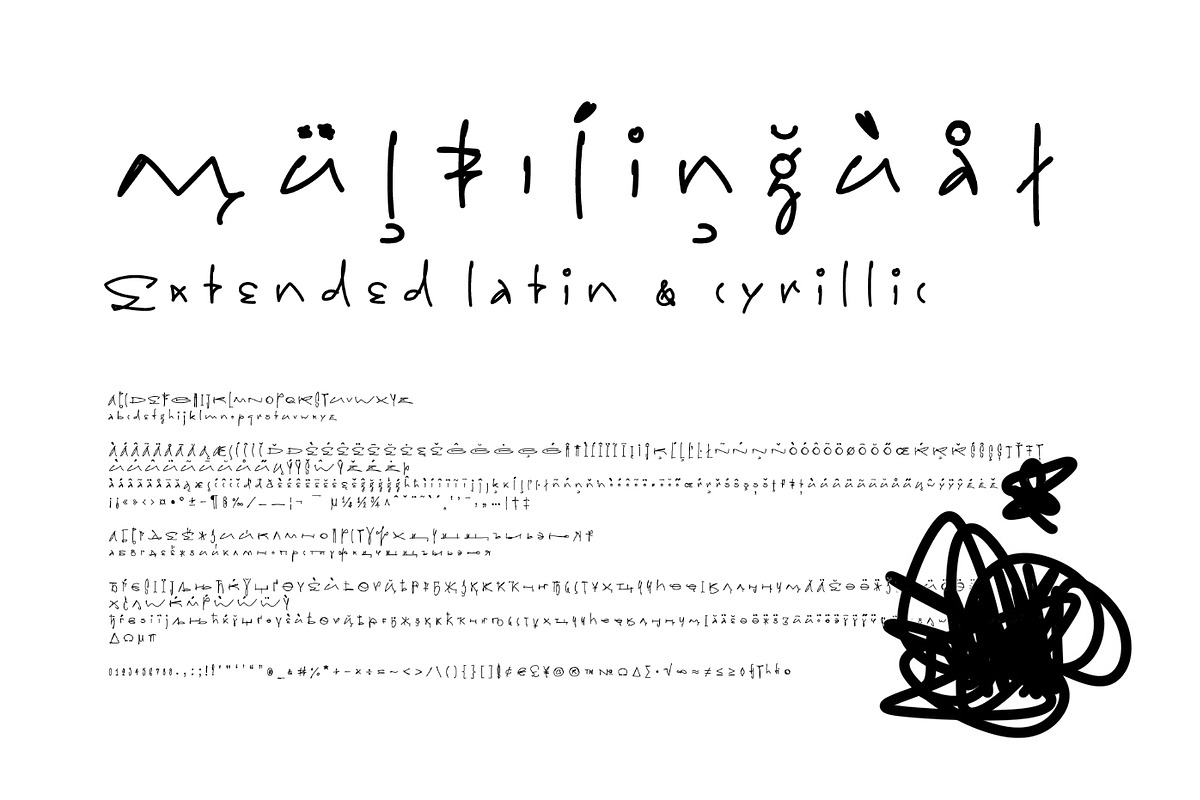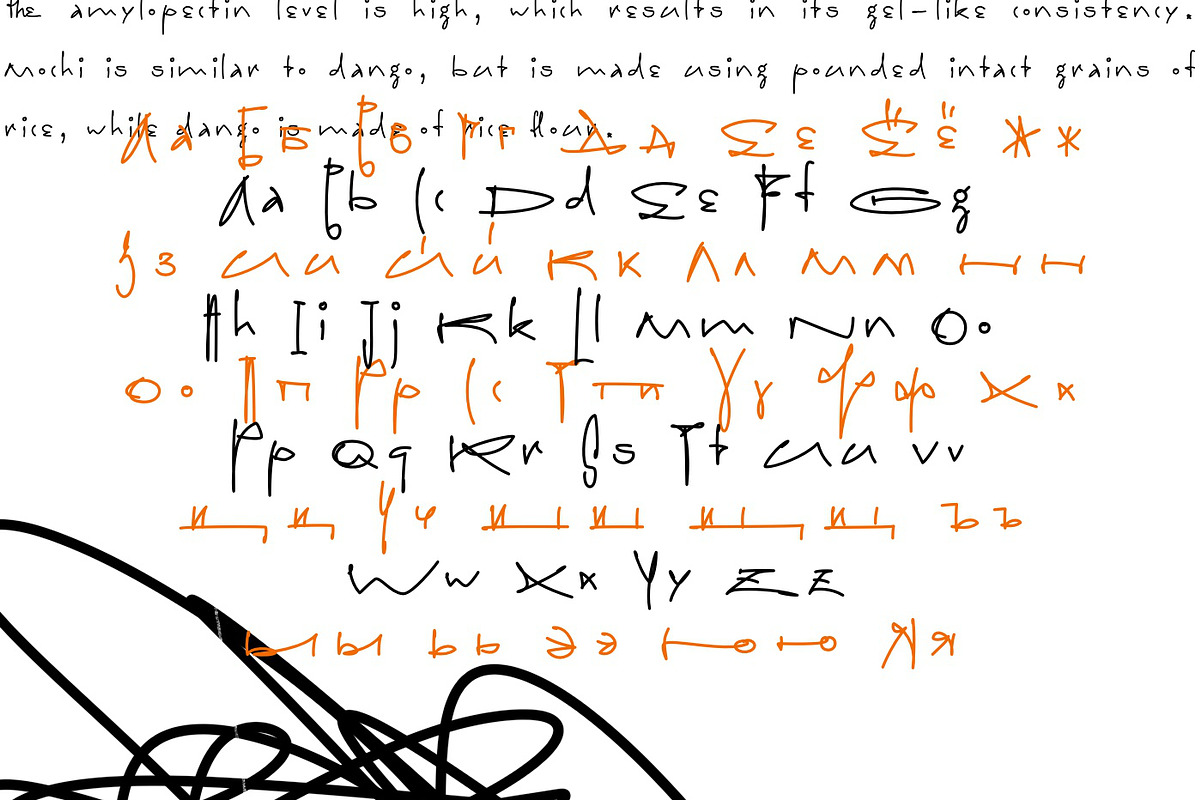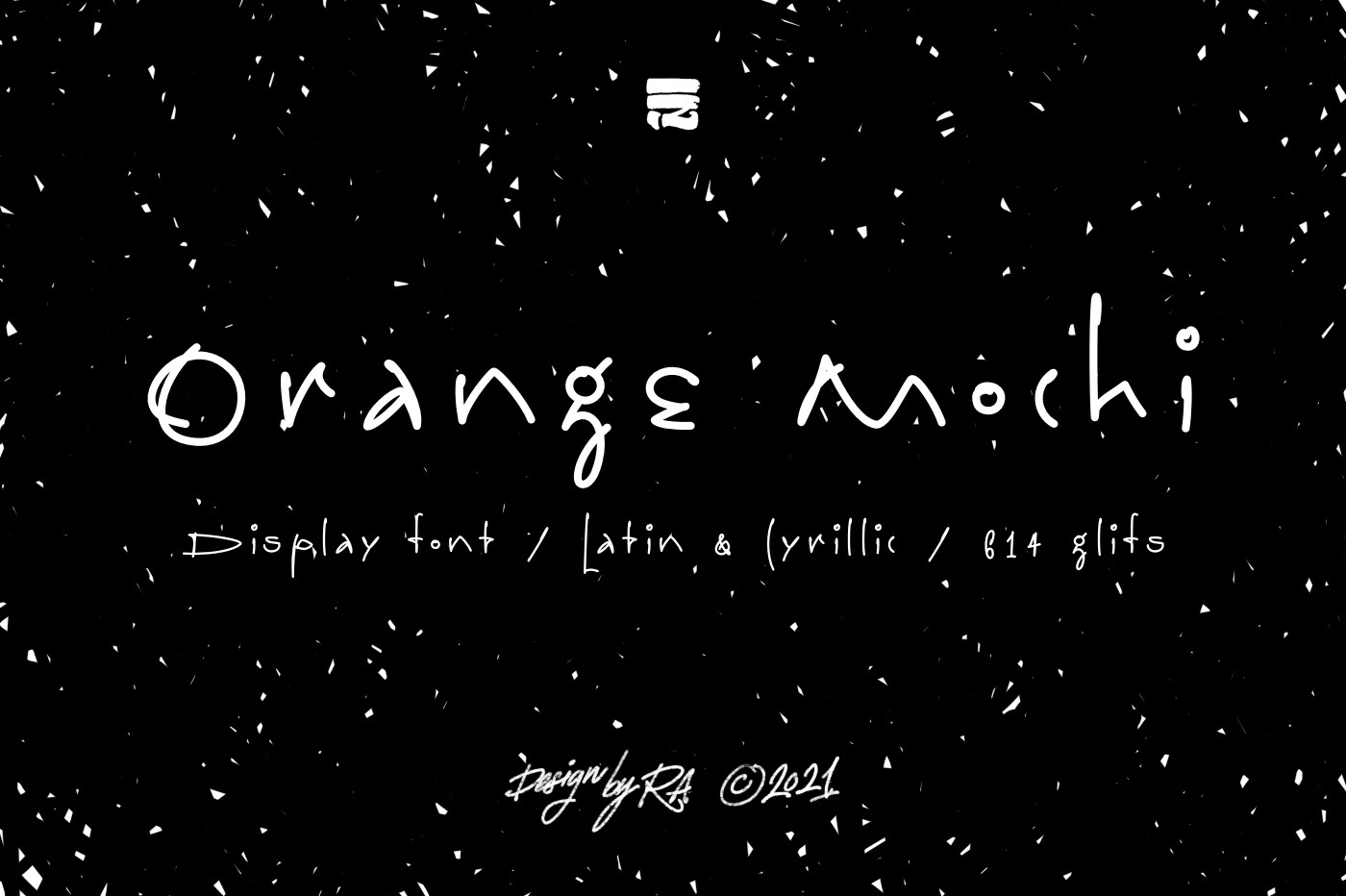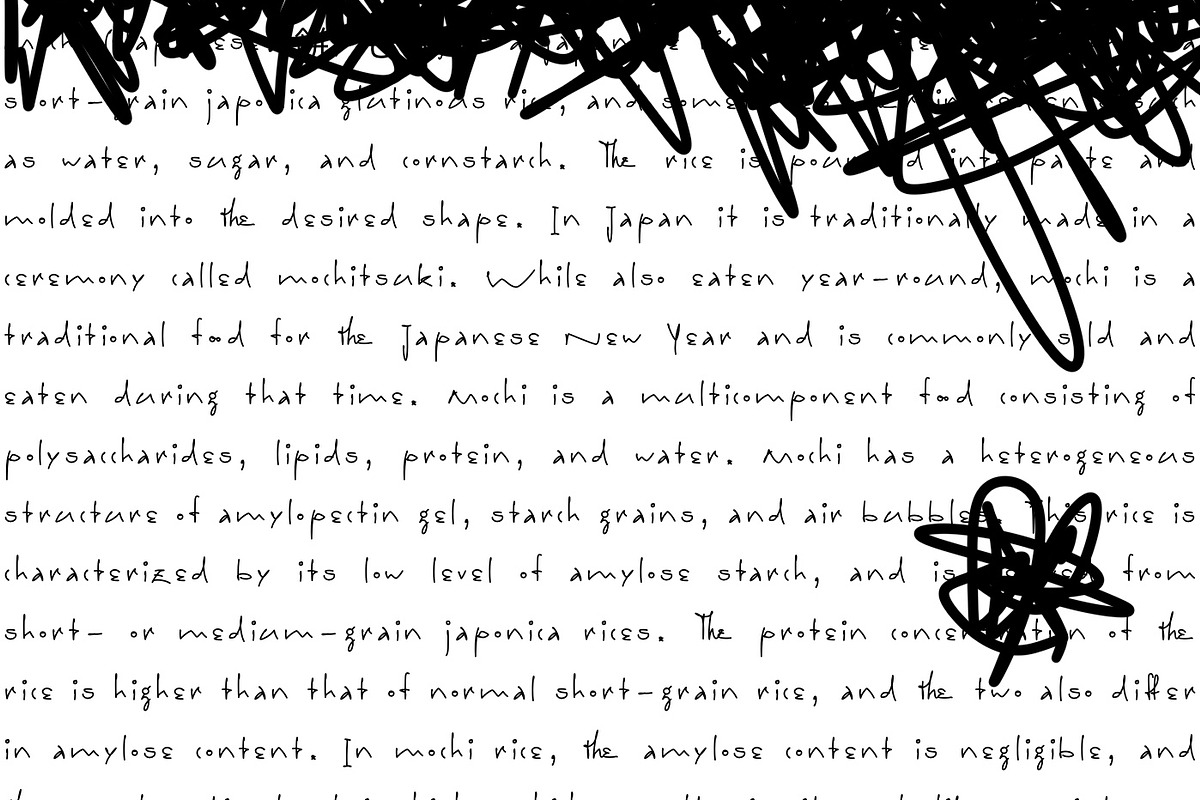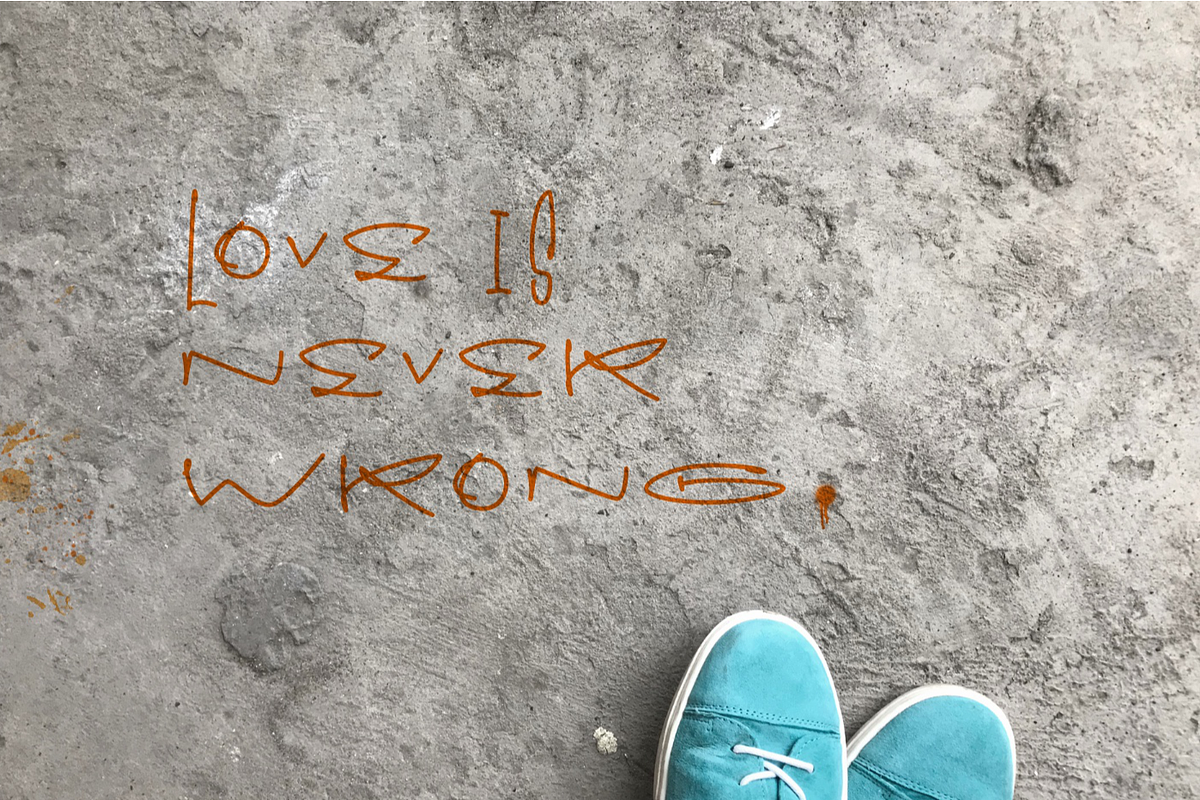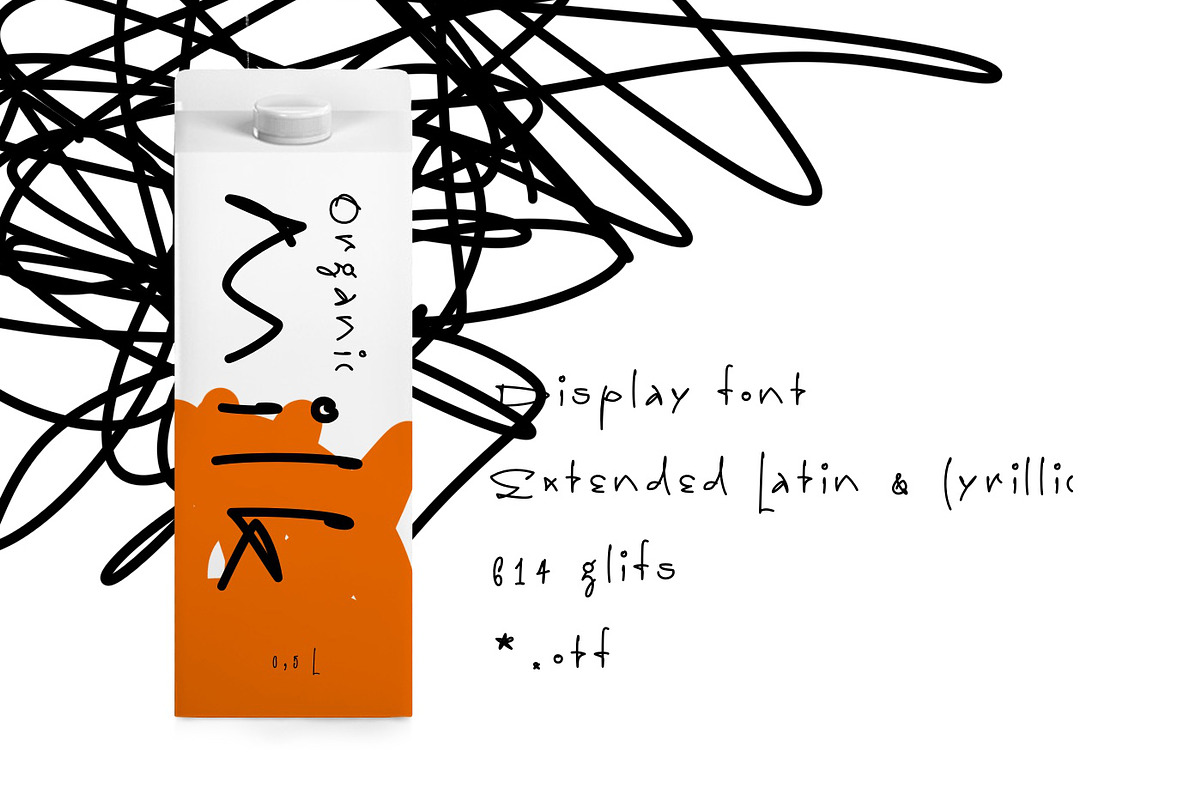
Orange Mochi - Display Font
Flying, elegant, handwritten font Orange Mochi.
The font is built on the basis of personal handwriting, has narrow and wide glyphs, brave external elements, alternative letters and funny ligatures.
The font works well in an array of text, titles and logos.
- Display font
- Extended latin & cyrillic
- 614 glifs